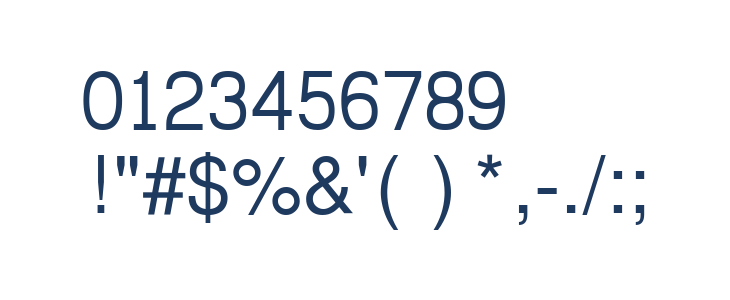
Content Bold Font
Content Bold Description
This font features a bold and clean design, characterized by its strong, uniform strokes and modern aesthetic. The numerals are evenly spaced and maintain a consistent weight throughout, providing a sense of balance and clarity. The special characters are designed with precision, ensuring they complement the overall style. The font's simplicity and boldness make it highly legible, suitable for various digital and print applications. Its geometric shapes and straight lines contribute to a contemporary look, making it versatile for different design needs.
| Use Case | Headlines, Logos, Digital Media |
| Proposed Projects | Ideal for branding, advertising, digital media, and editorial design projects. |